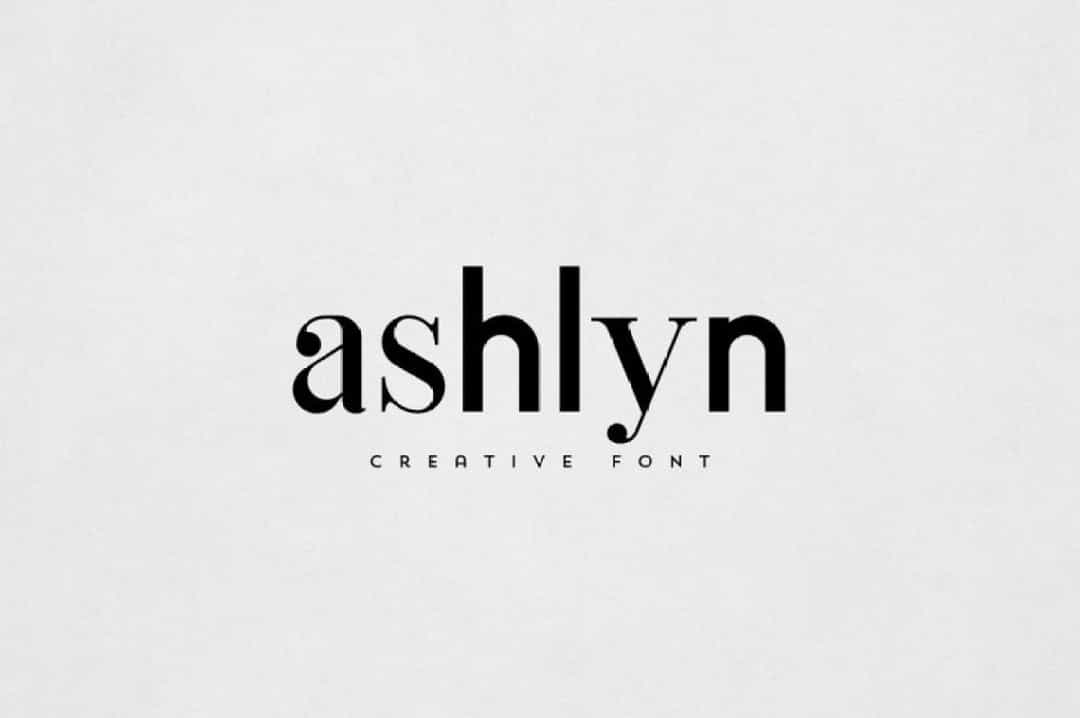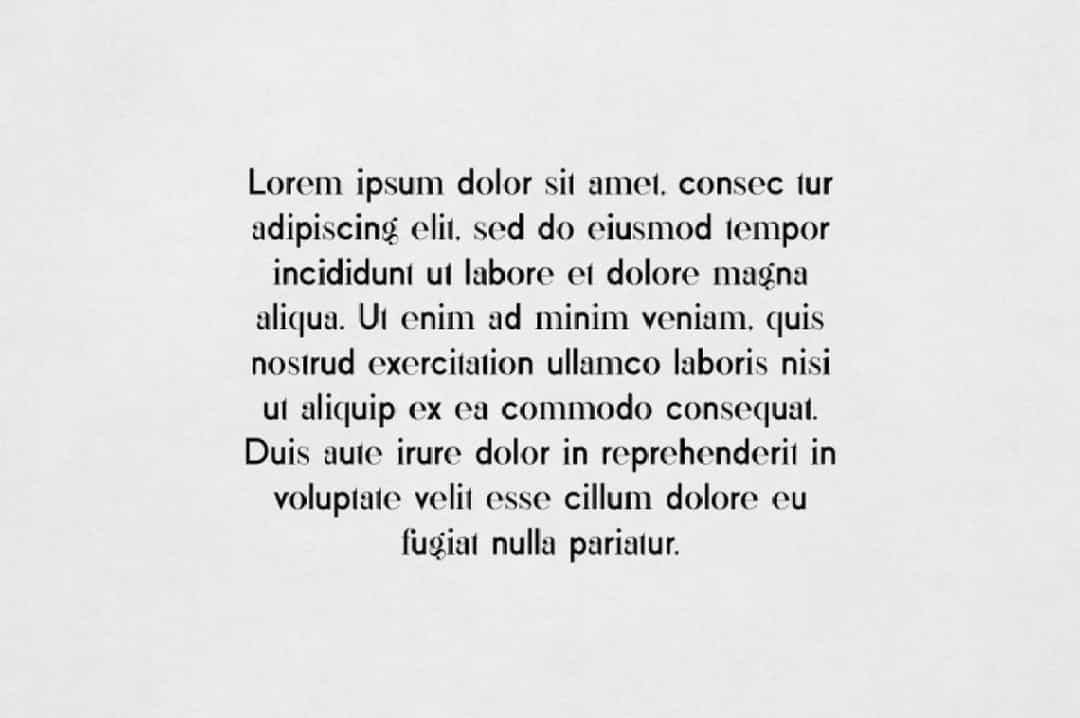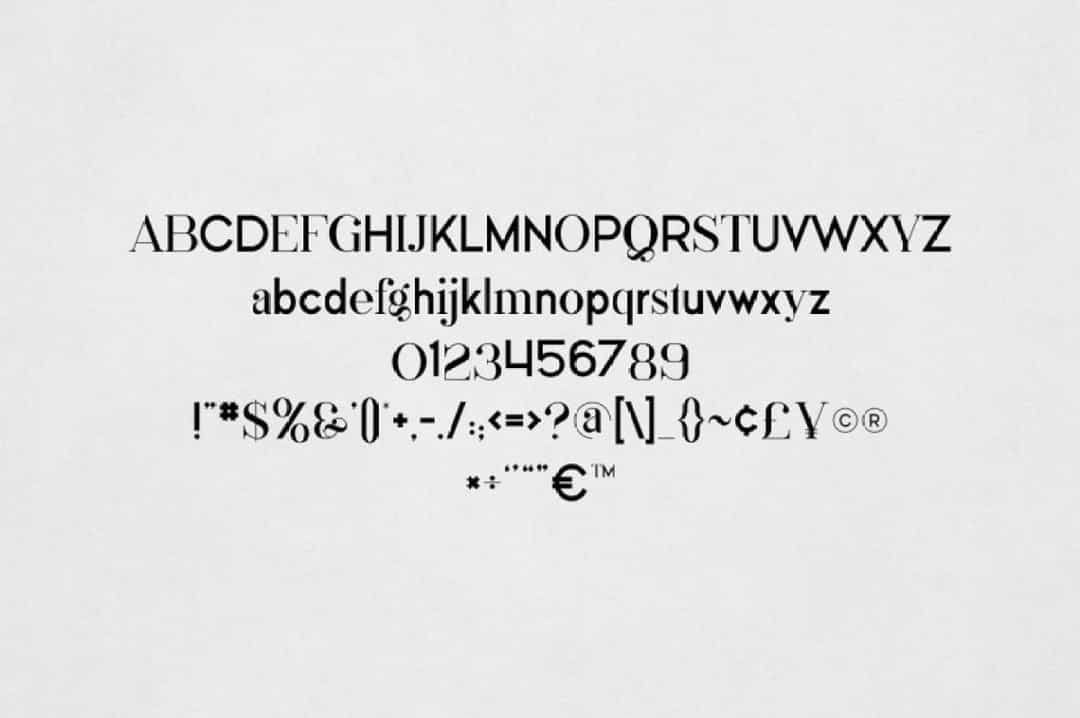
Ashlyn is an elegant and flexible serif typeface designed to add sophistication and flexibility to any typographic composition! This sophisticated typeface is sure to enchant any headline, logo, branding or even simple text! Ashlyn font can also be used as a beautiful text overlay over any image – ideal for branding purposes as well.